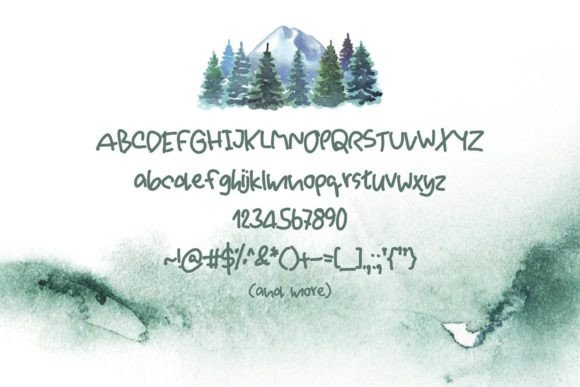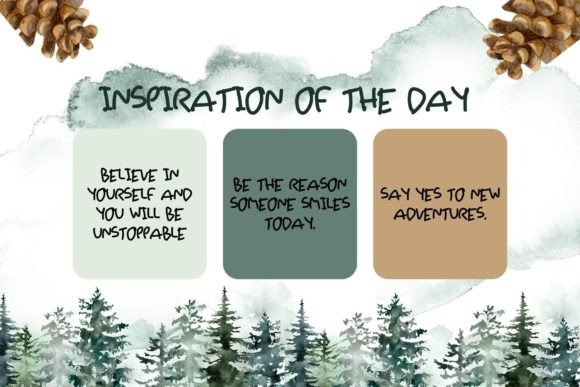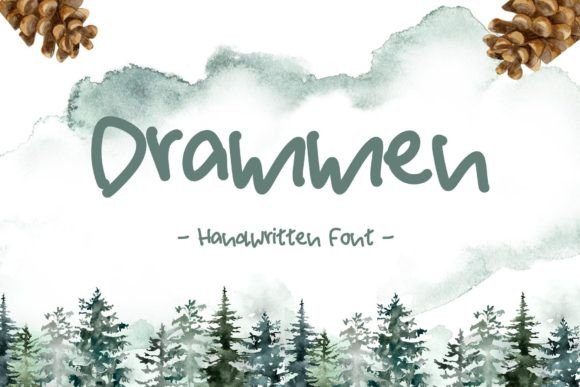
Drammen Font: The Perfect Handwritten Script for Fun and Friendly Artwork
Are you a designer or crafter looking for a unique and playful font to add a personal touch to your artwork? Look no further than the Drammen Font, a handwritten script font designed to bring a sense of fun and friendliness to your creations. In this article, we’ll take a closer look at the Drammen Font, its features, and how it can be used to elevate your designs.
What is Drammen Font?
Drammen Font is a handwritten script font that is based on inelegant handwriting, giving it a charming and informal feel. The font design is intentionally imperfect, with varying line widths and a playful, cursive style that makes it perfect for creating fun and friendly artwork. Whether you’re designing for digital or print, the Drammen Font is sure to add a touch of personality to your projects.
Features of Drammen Font
The Drammen Font has several features that make it an ideal choice for designers and crafters. Some of its key features include:
- Handwritten script style: The Drammen Font has a natural, handwritten look that is perfect for creating artwork that feels personal and unique.
- Inelegant handwriting: The font’s imperfect lines and varying line widths give it a charming, informal feel that is perfect for fun and friendly designs.
- Playful and cursive: The Drammen Font has a playful, cursive style that makes it perfect for creating artwork that is fun and engaging.
- Versatile: The Drammen Font can be used for a wide range of projects, from digital designs to print materials.
Uses of Drammen Font
The Drammen Font is a versatile font that can be used for a wide range of projects, including:
- T-shirt design: The Drammen Font is perfect for creating fun and playful designs for t-shirts, hoodies, and other apparel.
- Mugs and ceramics: Add a personal touch to mugs, plates, and other ceramics with the Drammen Font.
- Wall art: Create unique and playful wall art with the Drammen Font, perfect for nurseries, kids’ rooms, and more.
- Bags and crafts: The Drammen Font is perfect for designing bags, journals, and other crafts with funny quotes and sayings.
- Digital designs: Use the Drammen Font to create digital designs, such as social media graphics, blog posts, and more.
- Digital planners and bullet journals: Add a personal touch to digital planners and bullet journals with the Drammen Font.
- Presentations and greeting cards: The Drammen Font is perfect for creating presentations, greeting cards, and invitation cards that are fun and engaging.
- Sublimation: Use the Drammen Font for sublimation projects, such as customizing t-shirts, mugs, and more.
Why Choose Drammen Font?
So why choose the Drammen Font for your next project? Here are just a few reasons:
- Unique and playful: The Drammen Font has a unique and playful style that is sure to stand out from the crowd.
- Easy to read: Despite its informal style, the Drammen Font is easy to read, making it perfect for designs that require a clear message.
- Versatile: The Drammen Font can be used for a wide range of projects, from digital designs to print materials.
- Fun and friendly: The Drammen Font has a fun and friendly feel that is perfect for creating artwork that is playful and engaging.
In conclusion, the Drammen Font is a unique and playful handwritten script font that is perfect for designers and crafters looking to add a personal touch to their artwork. With its inelegant handwriting style, playful and cursive lines, and versatile uses, the Drammen Font is sure to become a favorite in your font collection. Whether you’re designing for digital or print, the Drammen Font is a great choice for creating fun and friendly artwork that stands out from the crowd.